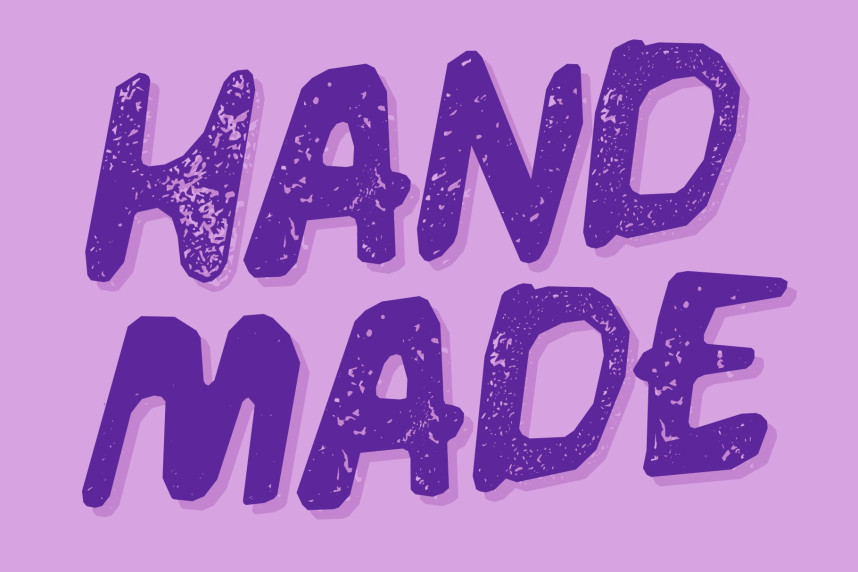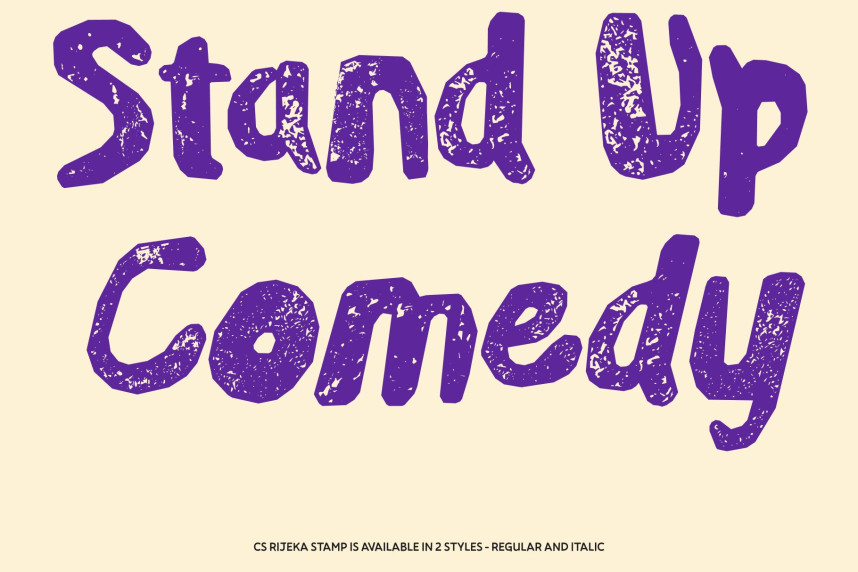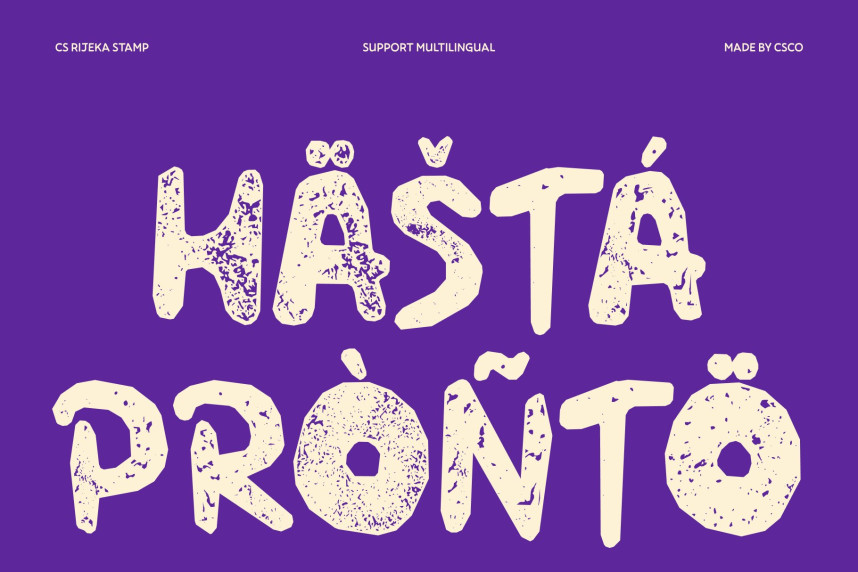
CS Rijeka Stamp Font
CS Rijeka Stamp Font – Hand-Drawn Display Font: Where Playful Scribbles Meet Vintage Stamp Texture
Cute, Fun Letterforms with Scribble Energy
This is a playful hand-drawn display font designed to bring warmth, charm, and personality to modern designs. Featuring cute, expressive letterforms with lively scribble-inspired strokes, it creates a cheerful visual identity that feels spontaneous, friendly, and full of creative energy. Every character is crafted to deliver a handcrafted look that instantly captures attention.